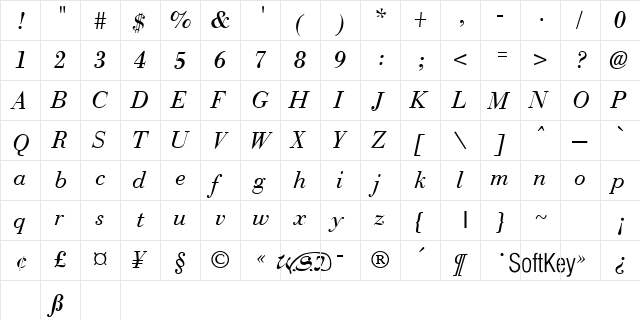
Nec Italic Lite Italic Lite
Design Context for Nec Italic Lite Typeface
Nec Italic Lite offers clean, dependable letterforms without strong stylistic allegiance, making it a practical choice for designers who need flexibility. The dynamic lean of this cut emphasises speed and emphasis in any layout.
Pro Tip: Try Nec Italic Lite for annotation and caption copy alongside an upright companion — the contrast in angle creates a dynamic but ordered typographic system.